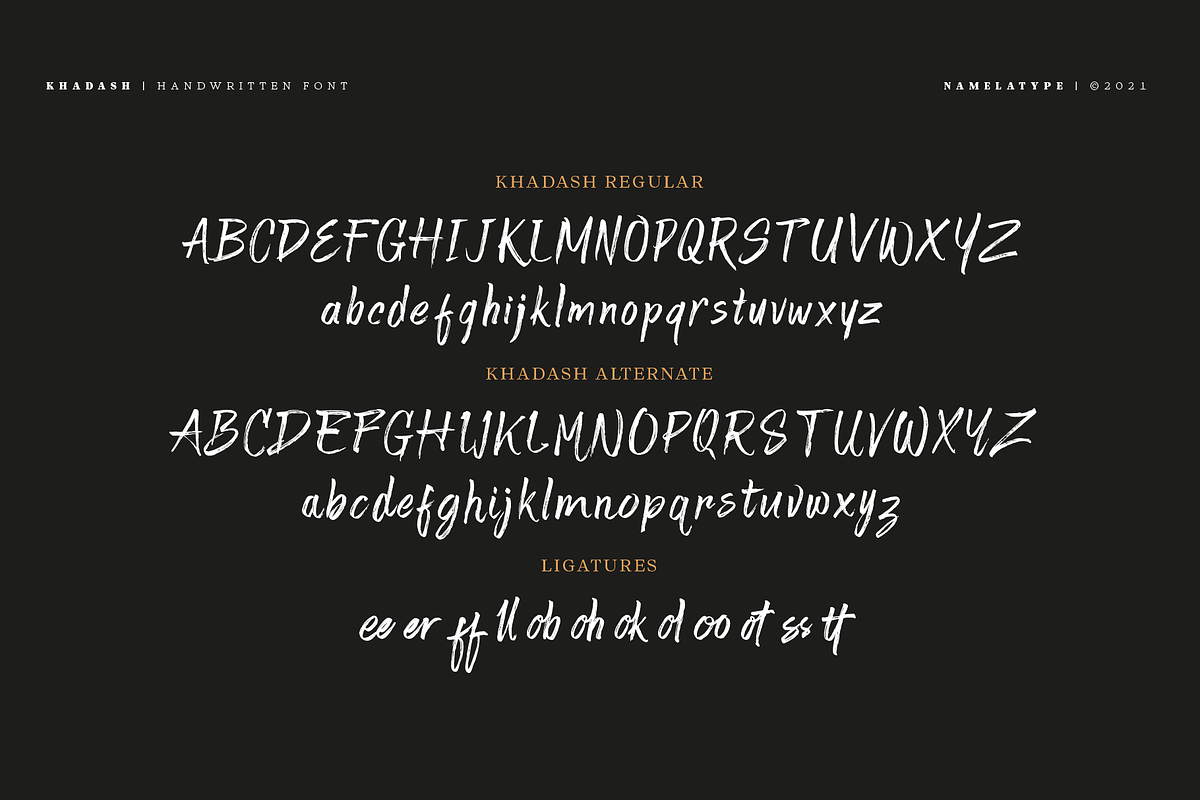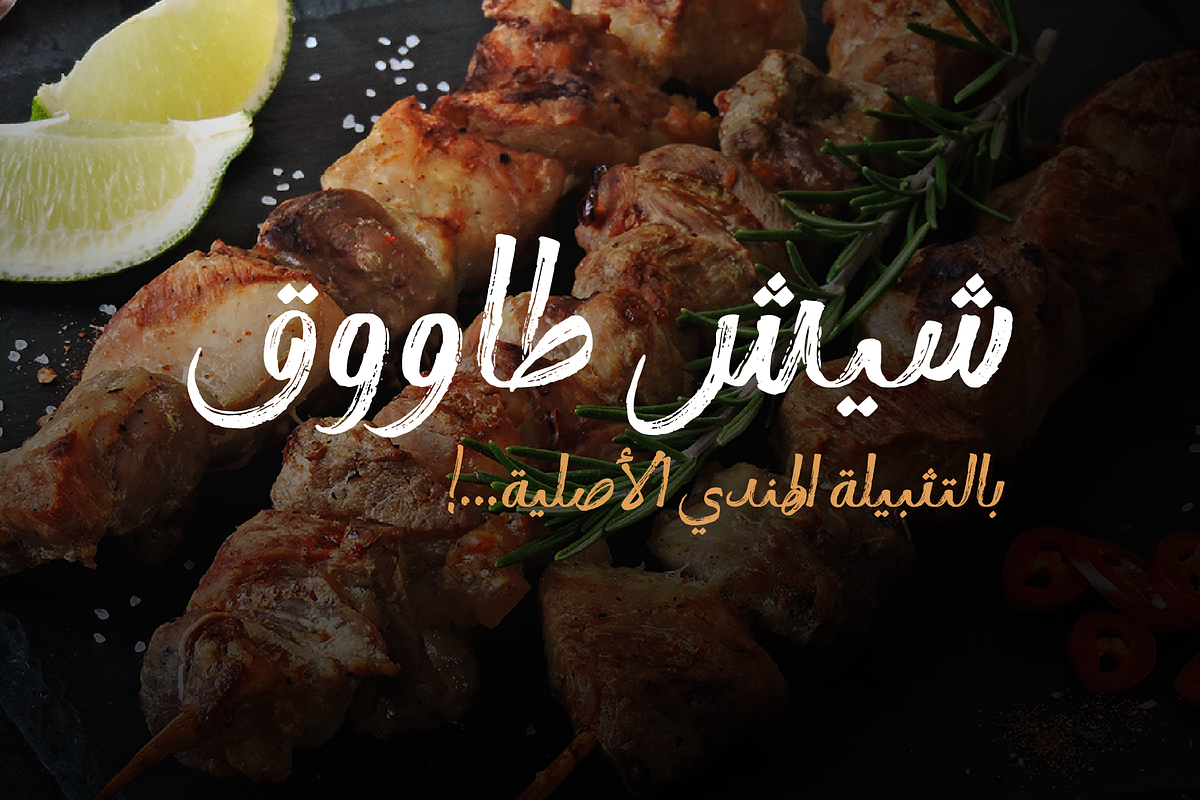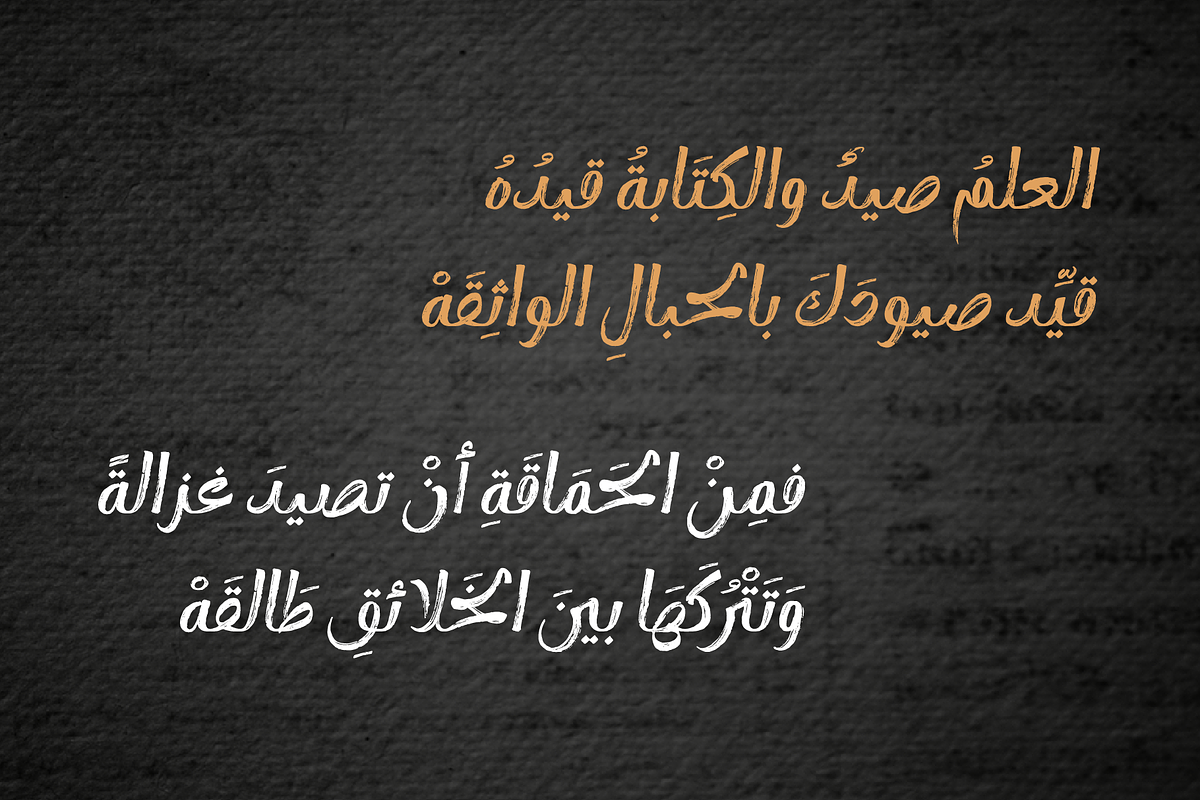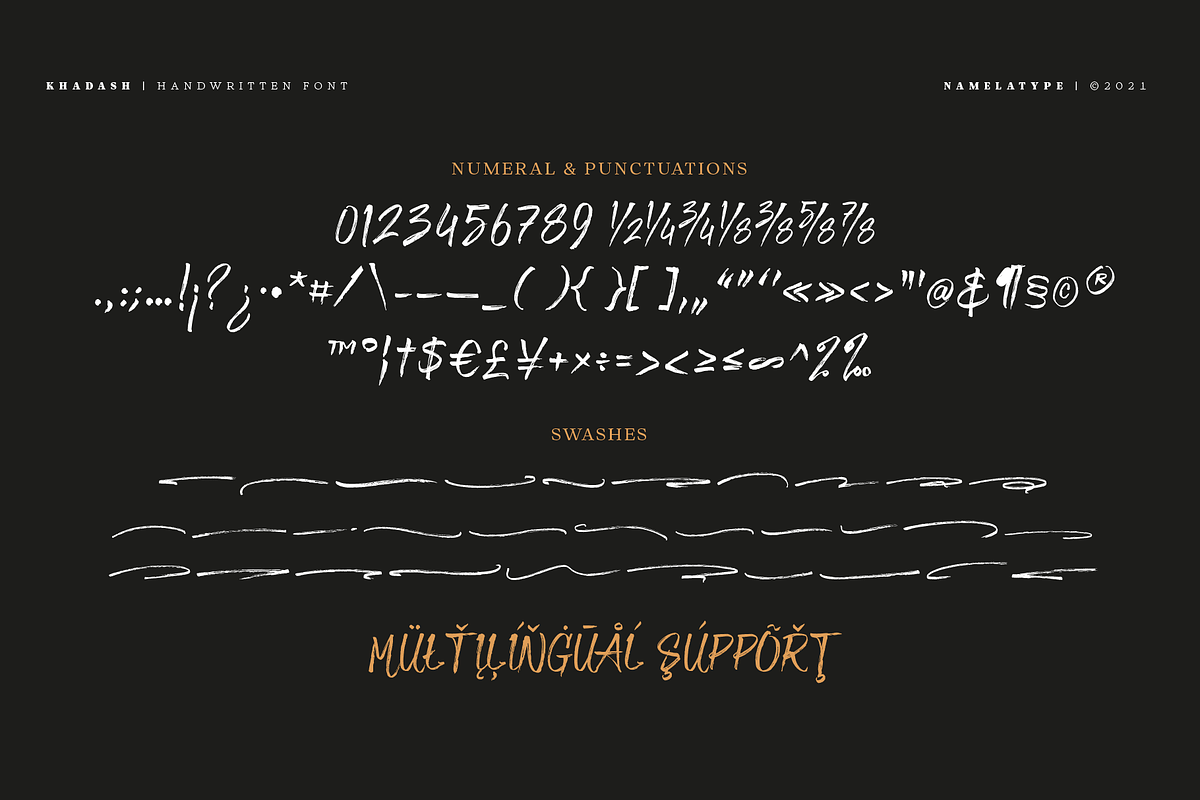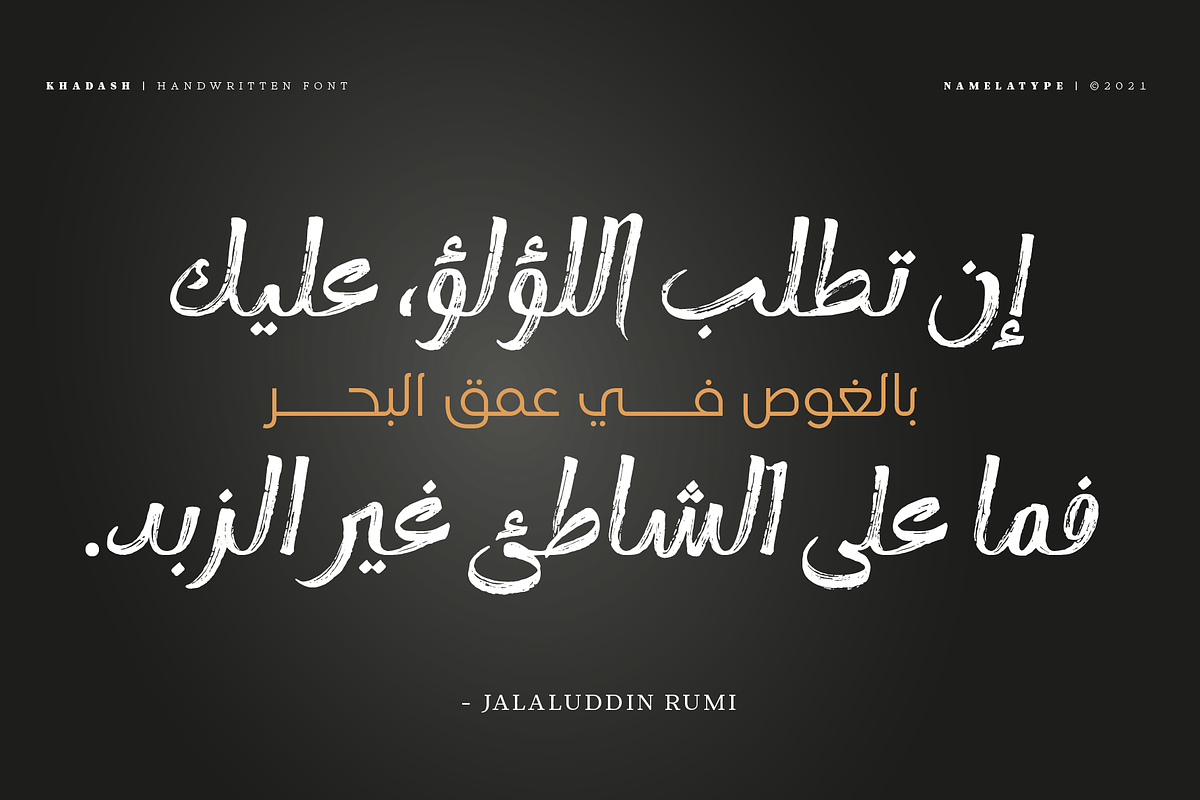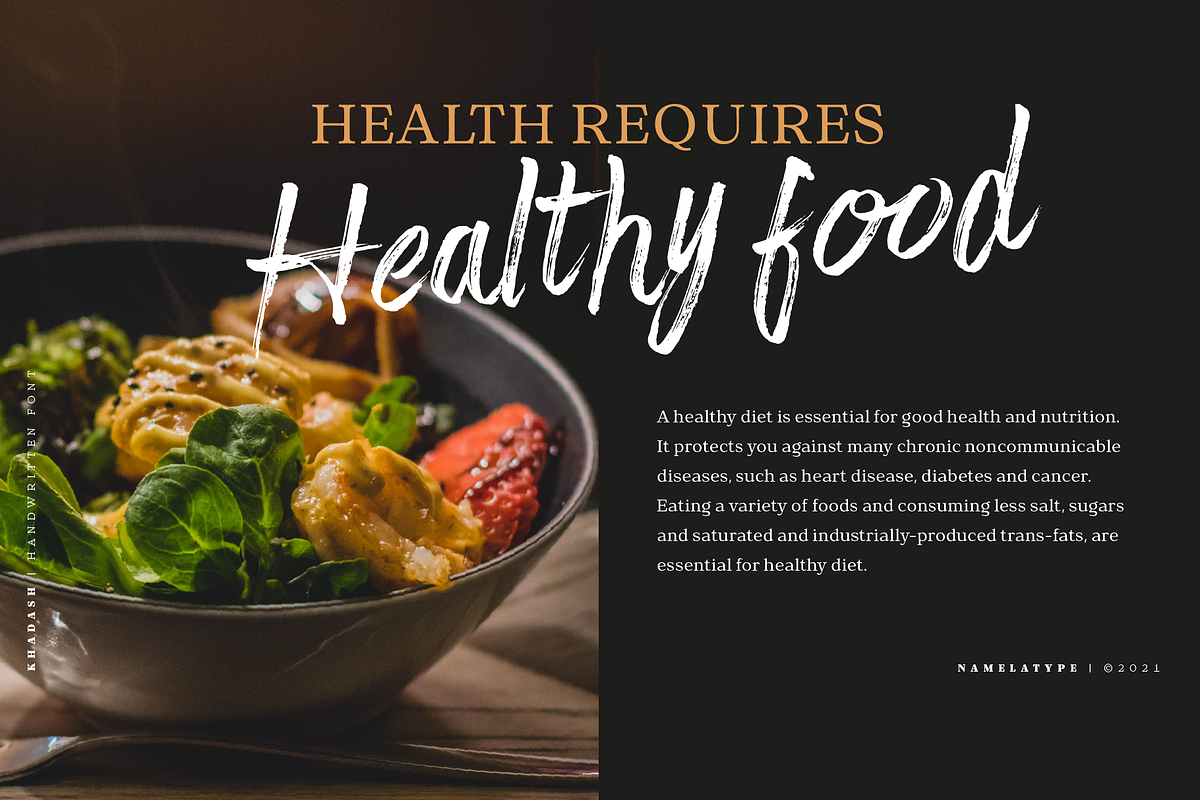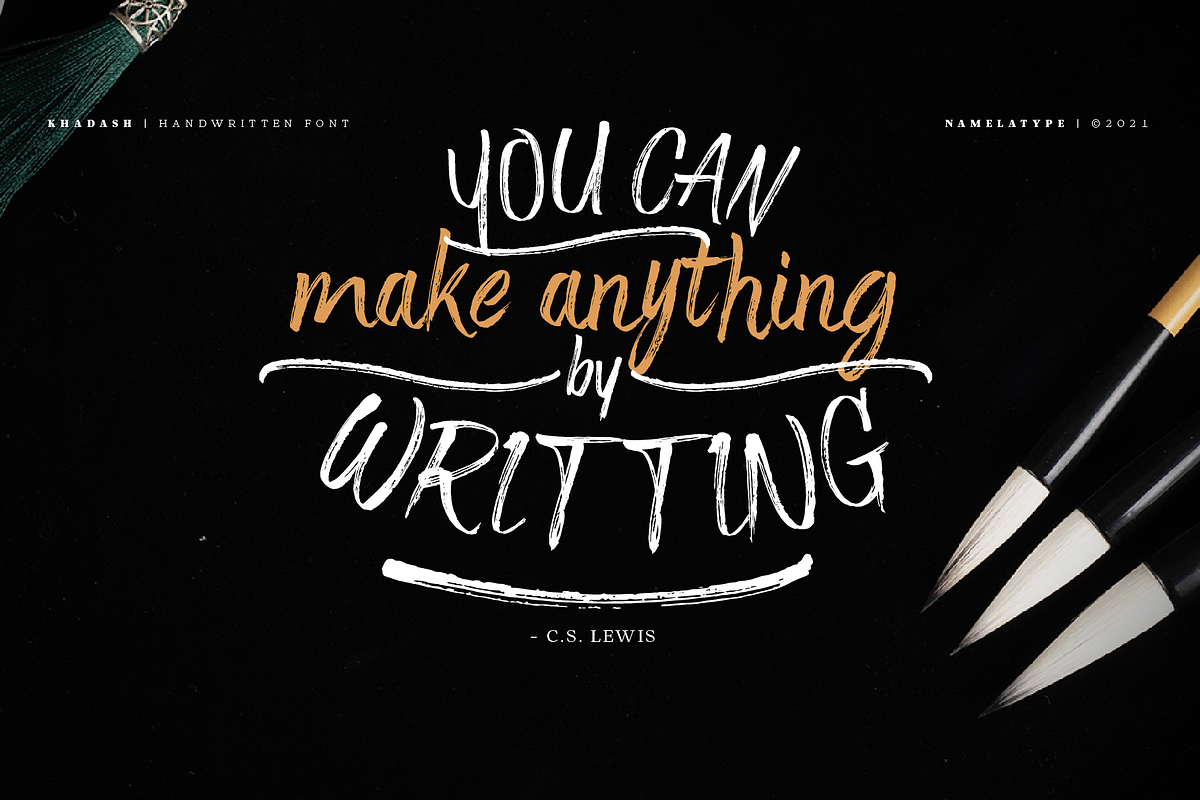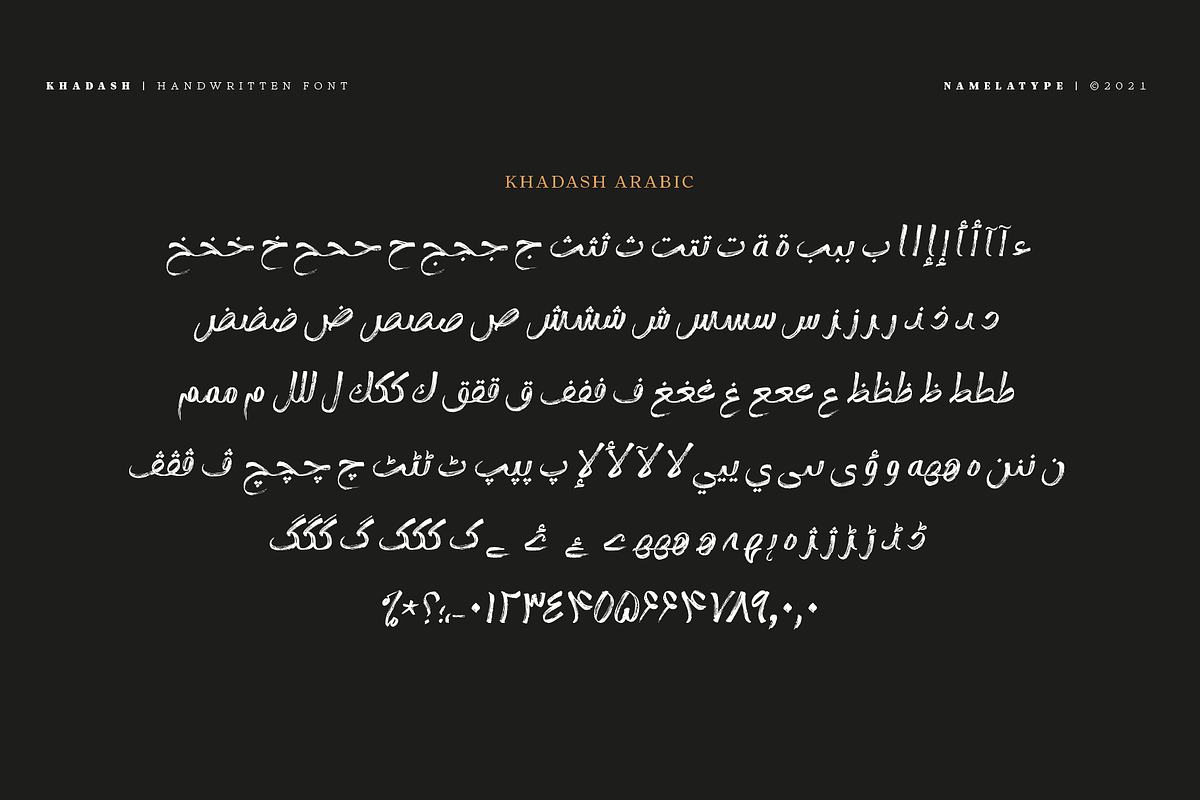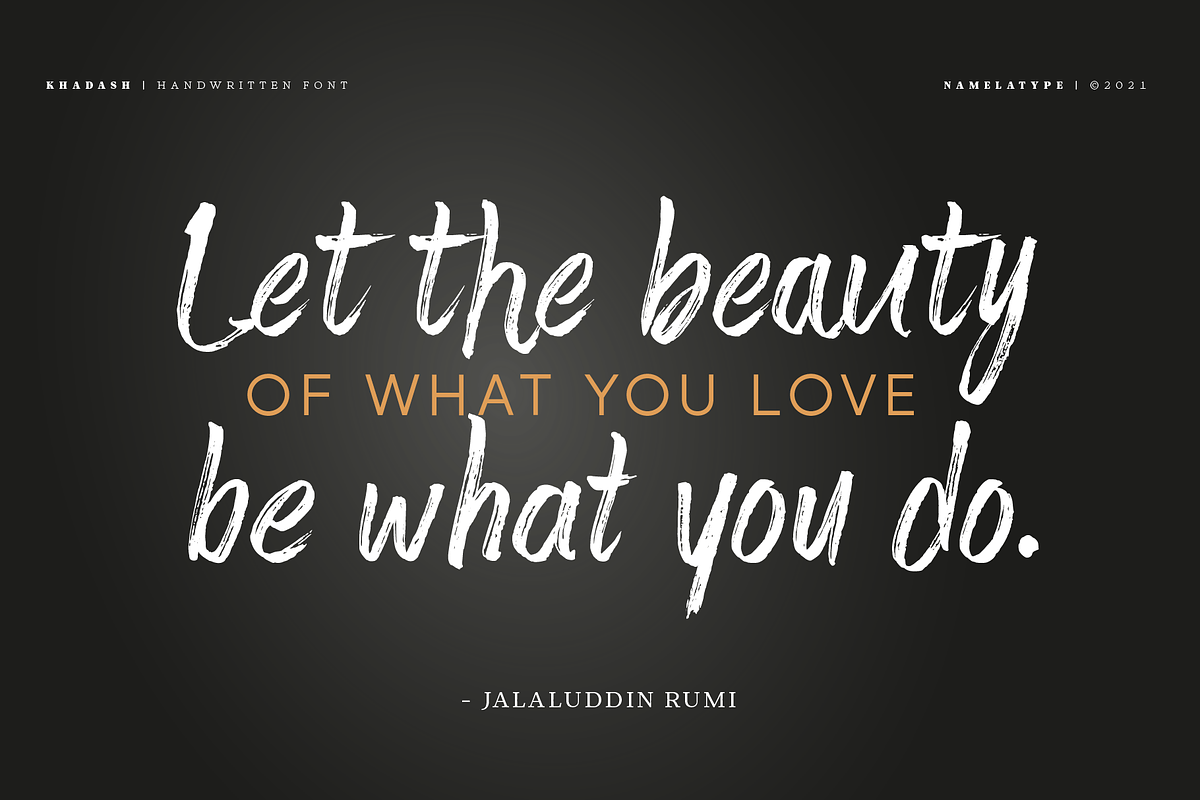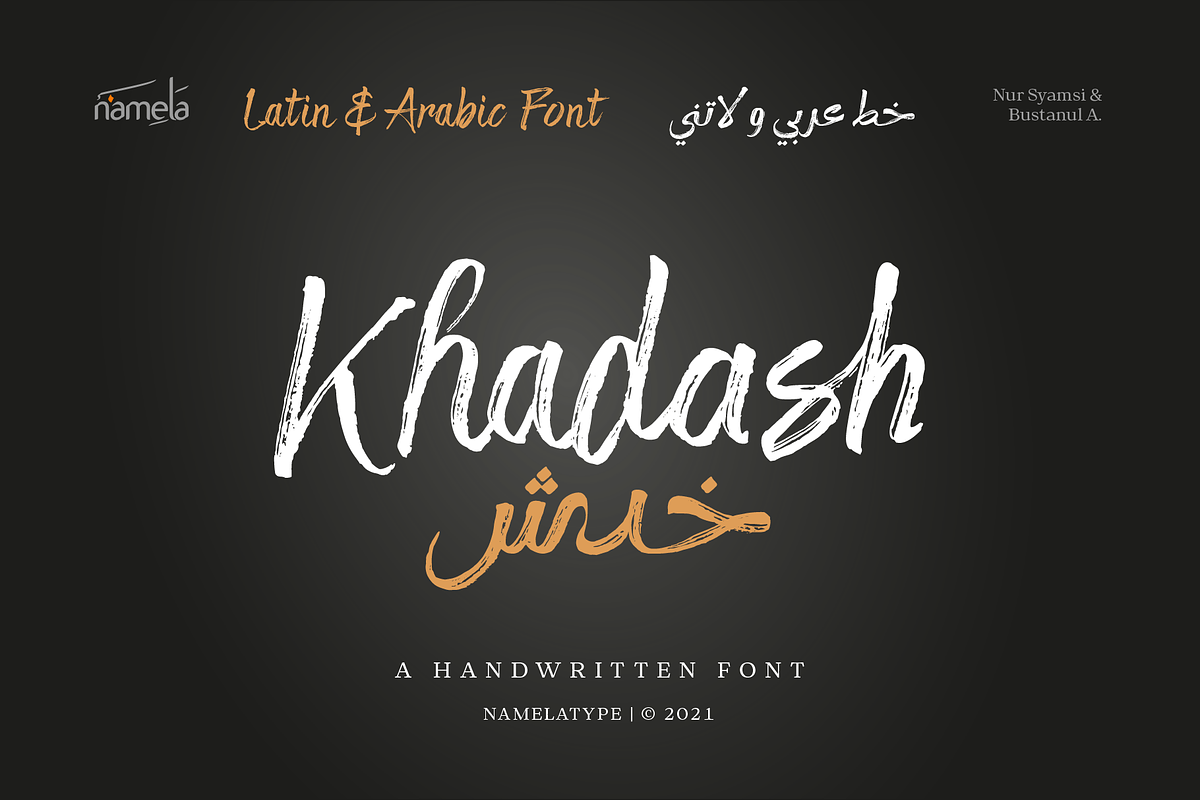
Khadash - Latin & Arabic
Khadash is a slick Handwriting Brush Latin and Arabic font, made with natural strokes that resemble real handwriting. Khadash Arabic font is a separate with Latin characters as subfamily to reduce font size. There are two sets of Latin character choices in the form of letters, regular and alternate,
Khadash is perfect for branding projects, product packaging, merchandise, advertising, quotes and more